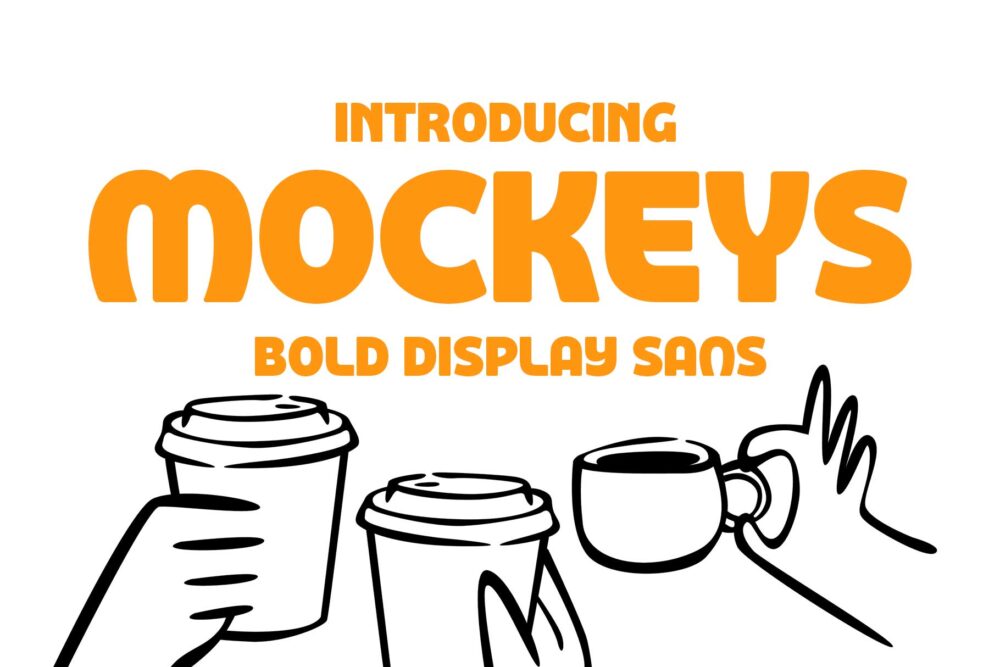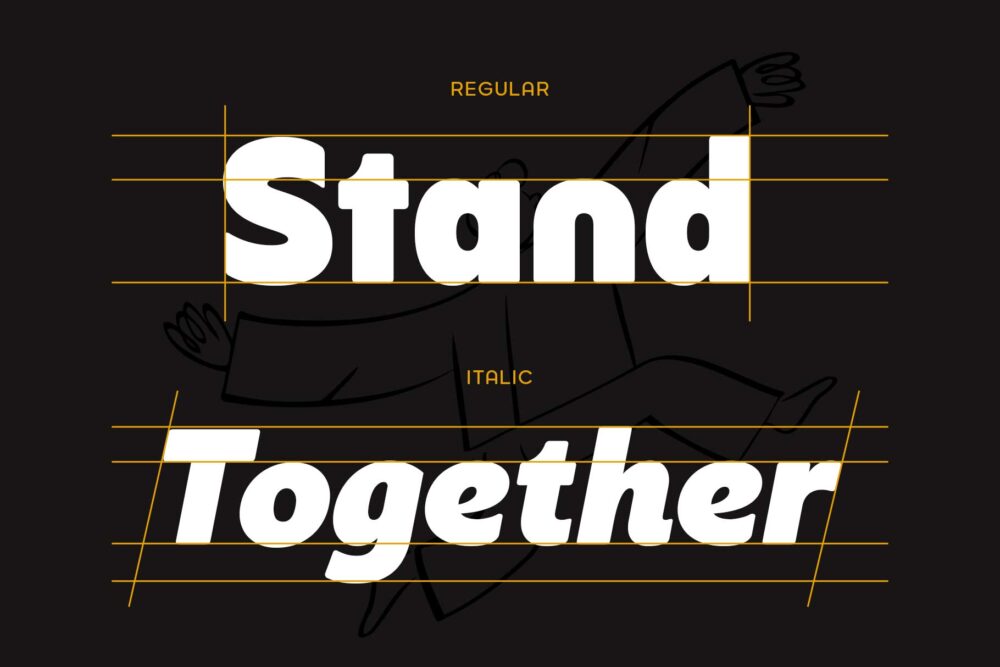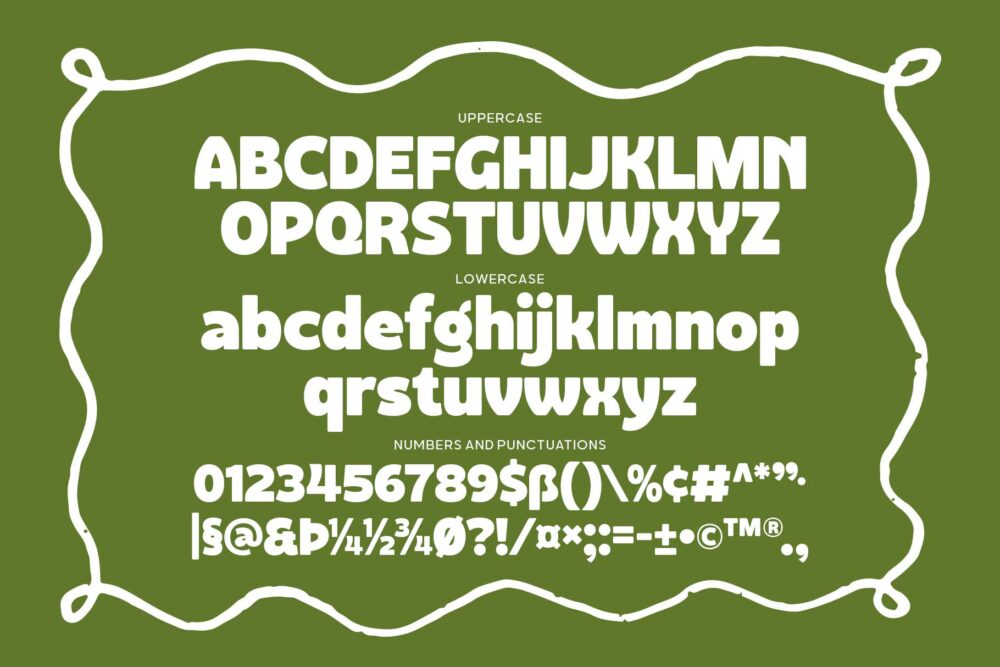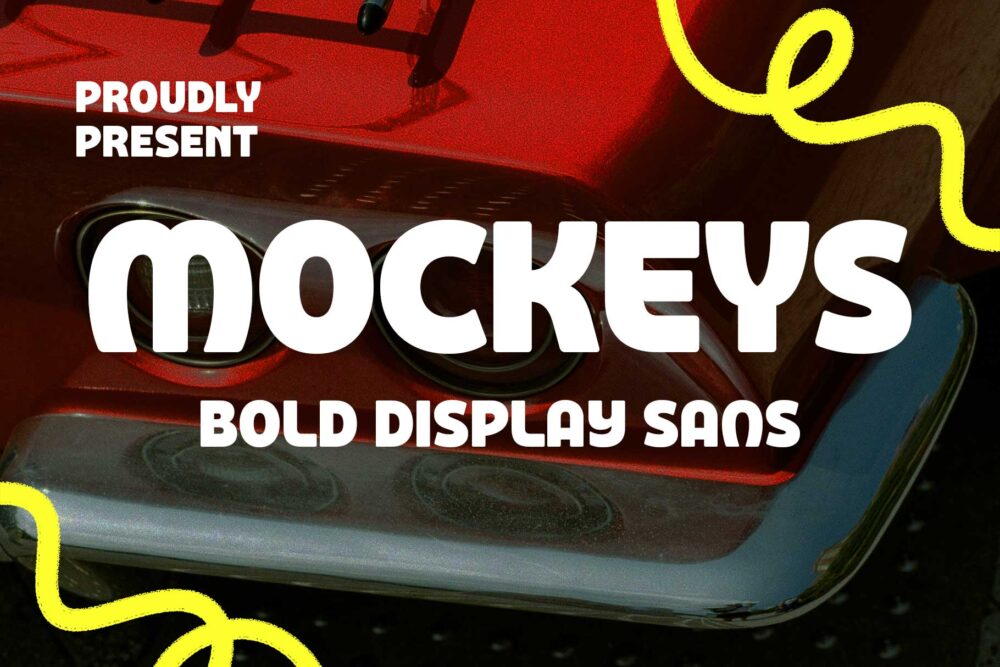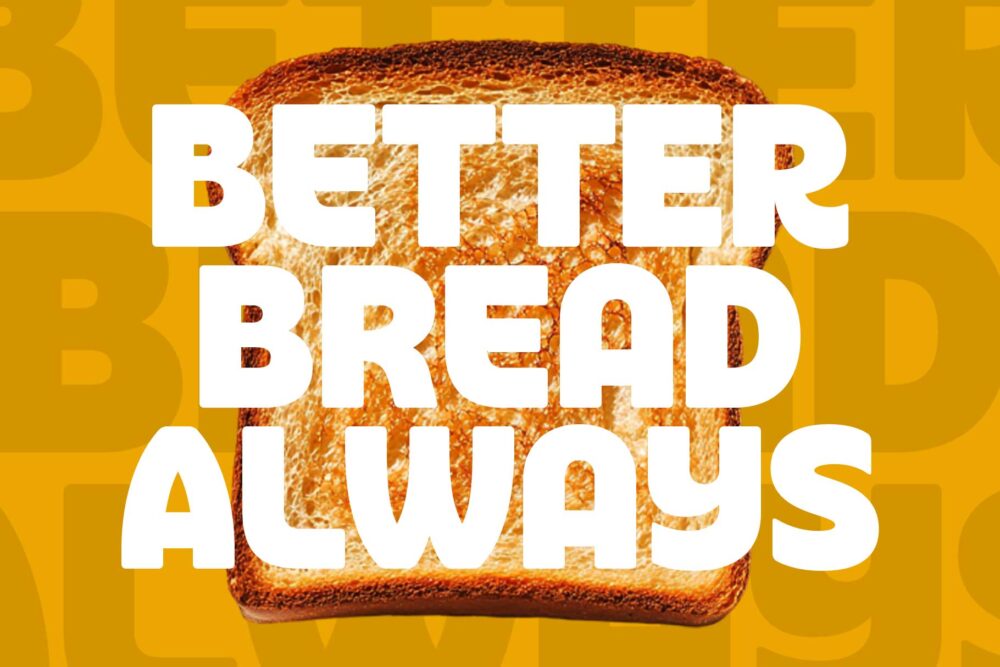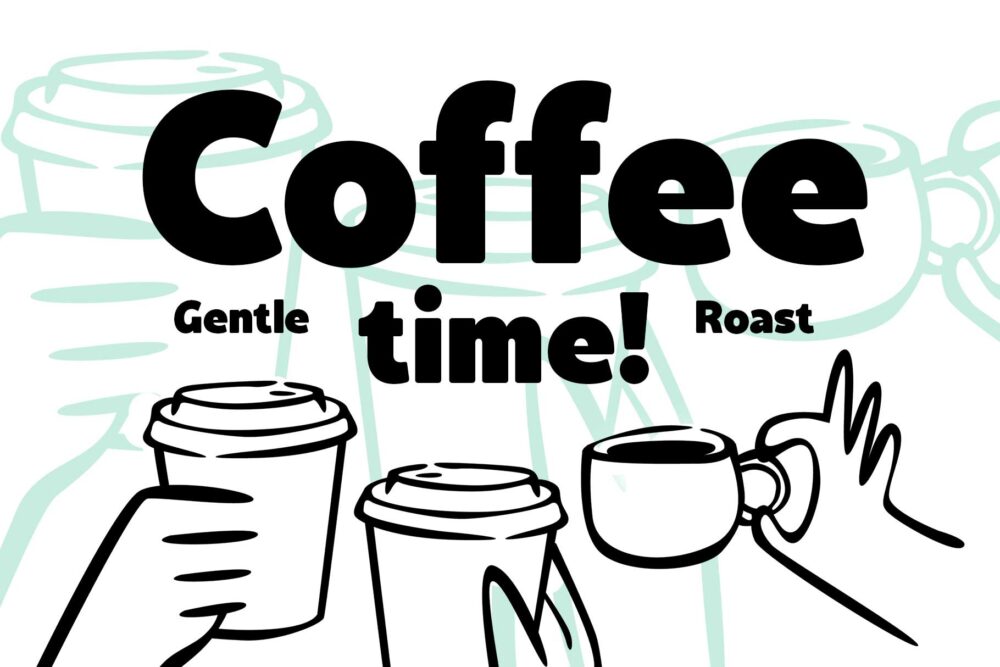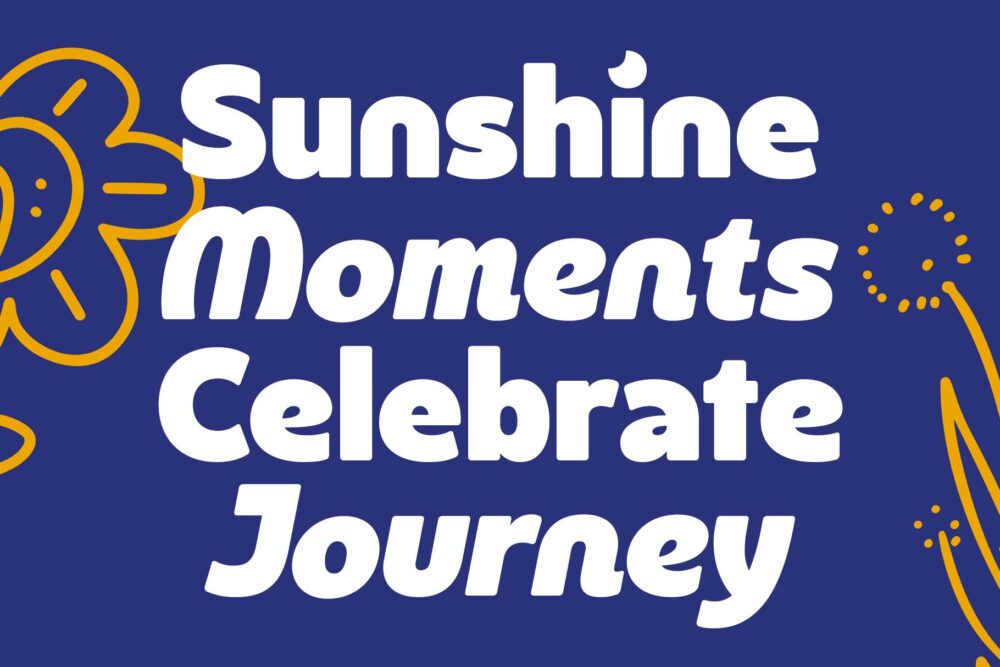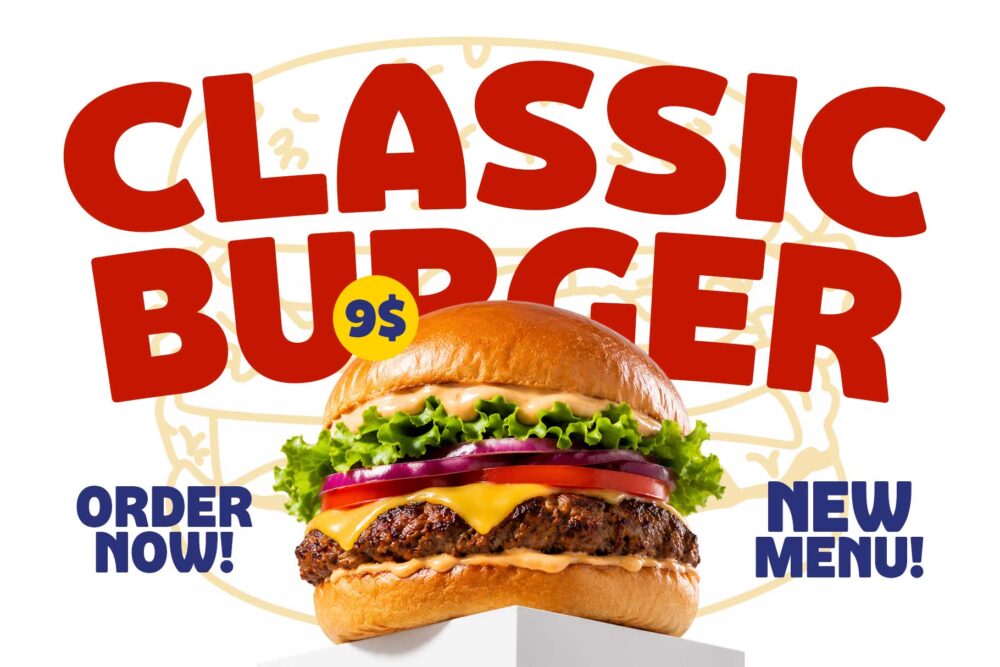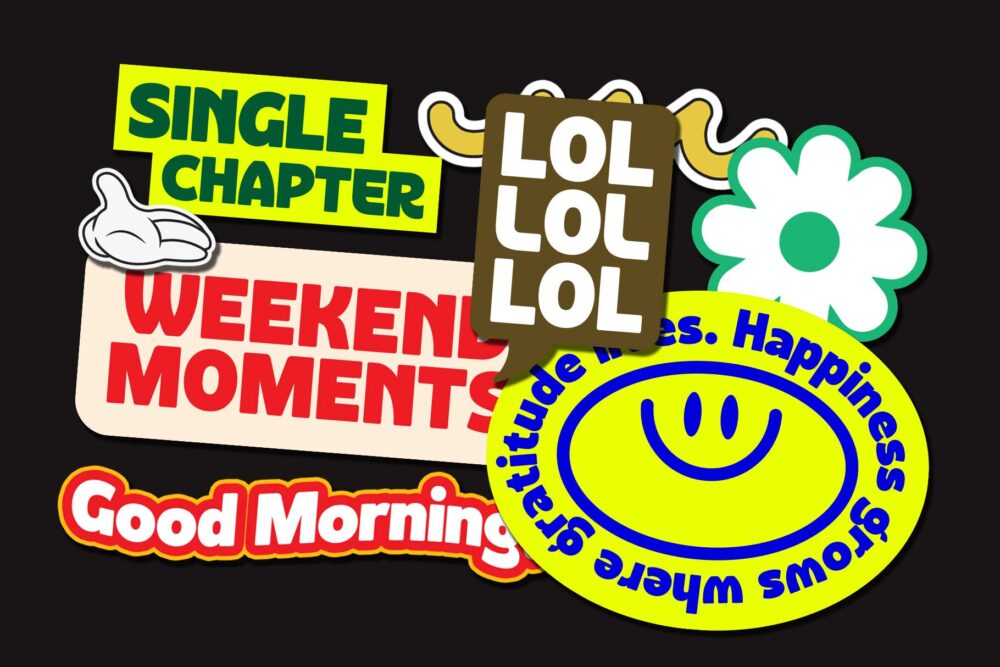
Mockeys Playful Display Typeface
Mockeys - Regular
Mockeys - Italic
Mockeys is a bold display sans that instantly feels friendly. Unlike many heavy display fonts that lean toward a powerful or masculine personality, Mockeys embraces a softer, more welcoming voice through its rounded forms, generous proportions, and playful rhythm. It sits somewhere between the warmth of Cooper Black and the clarity of a modern geometric sans, but without feeling overly retro or tied to a specific era. The result is a typeface that feels familiar, approachable, and effortlessly contemporary.
Designed to make headlines memorable, Mockeys shines in branding, packaging, café identities, food products, merchandise, posters, and social content. Its bold silhouette commands attention, while the carefully balanced curves keep every word approachable and easy to read. Whether paired with clean minimal layouts or colorful illustrations, Mockeys adds just enough personality to make a design feel alive—confident without being loud, playful without becoming childish.